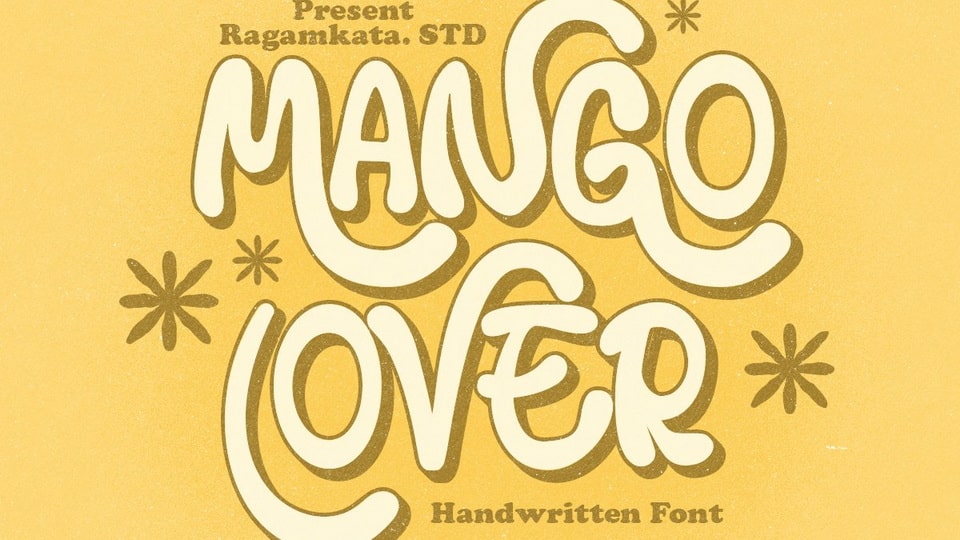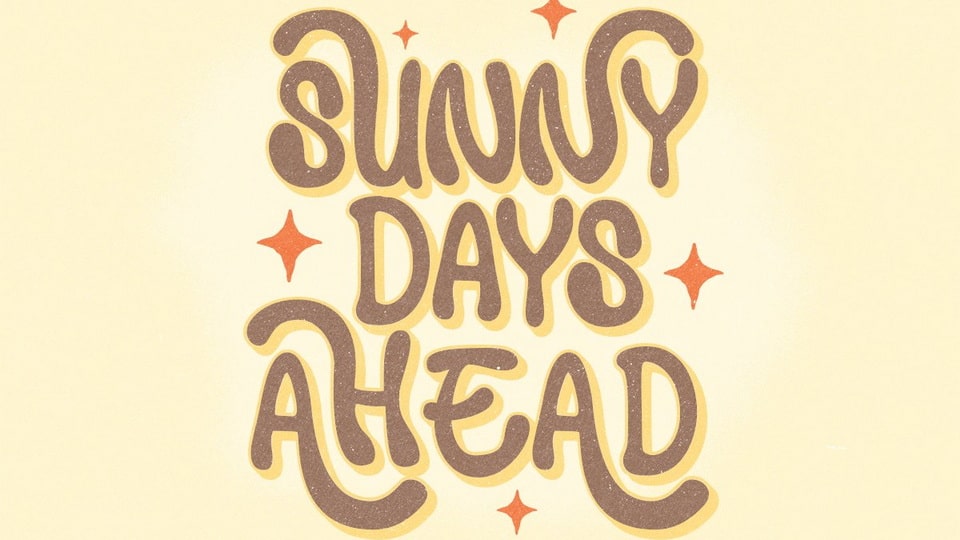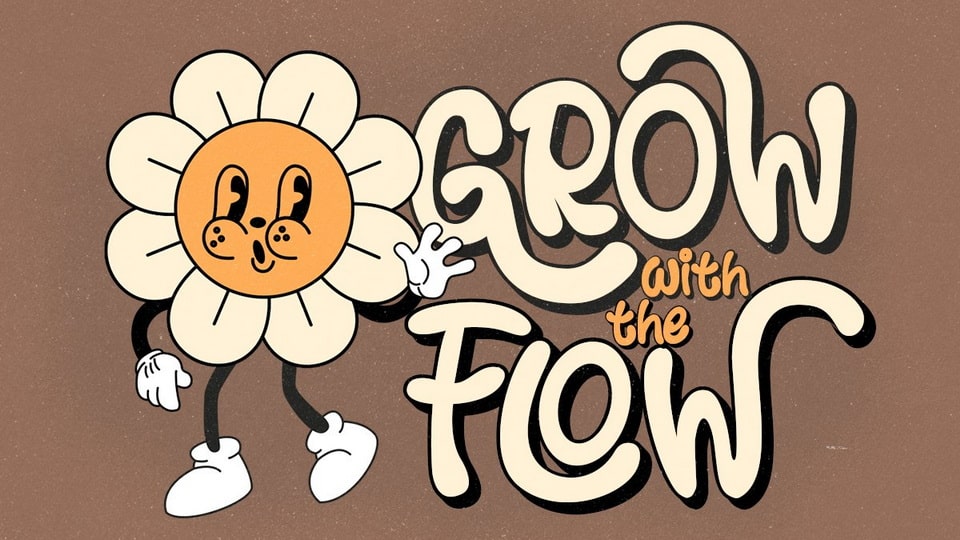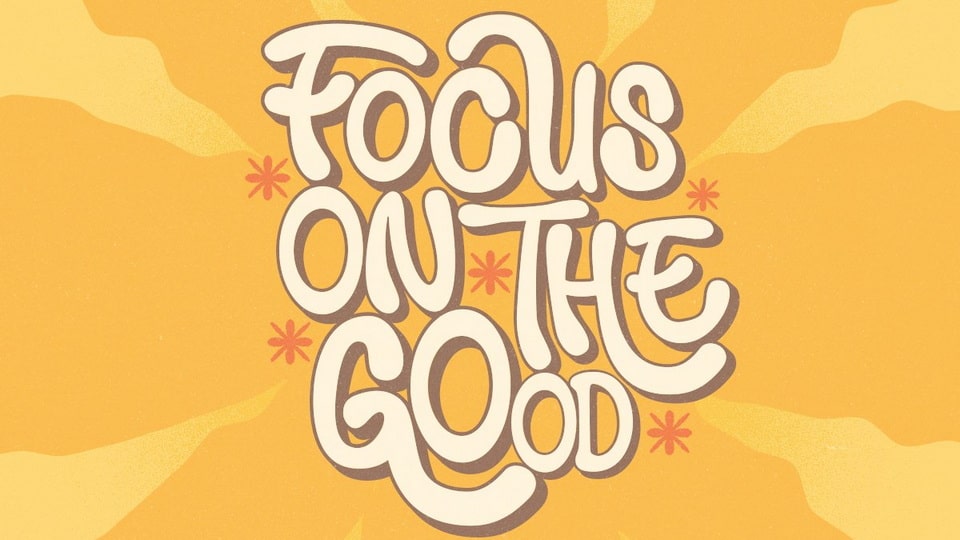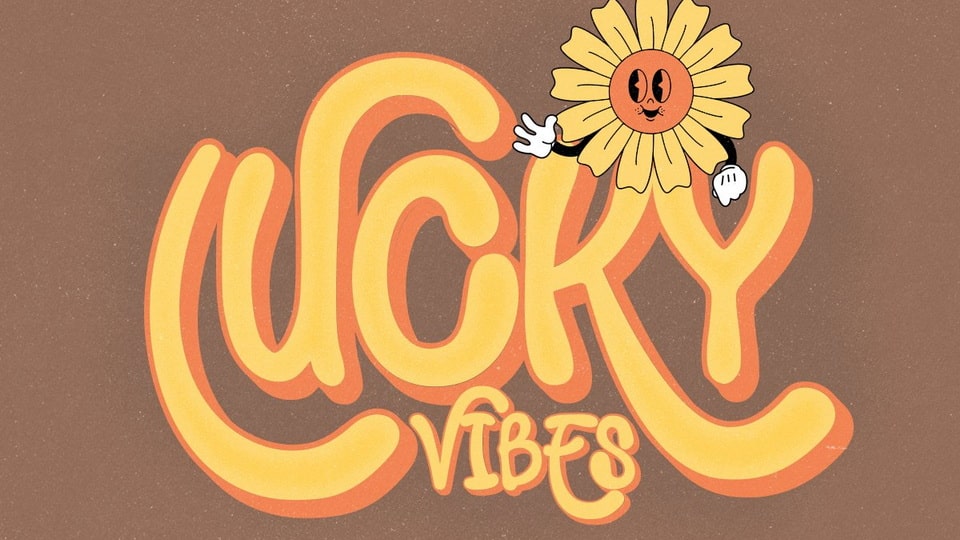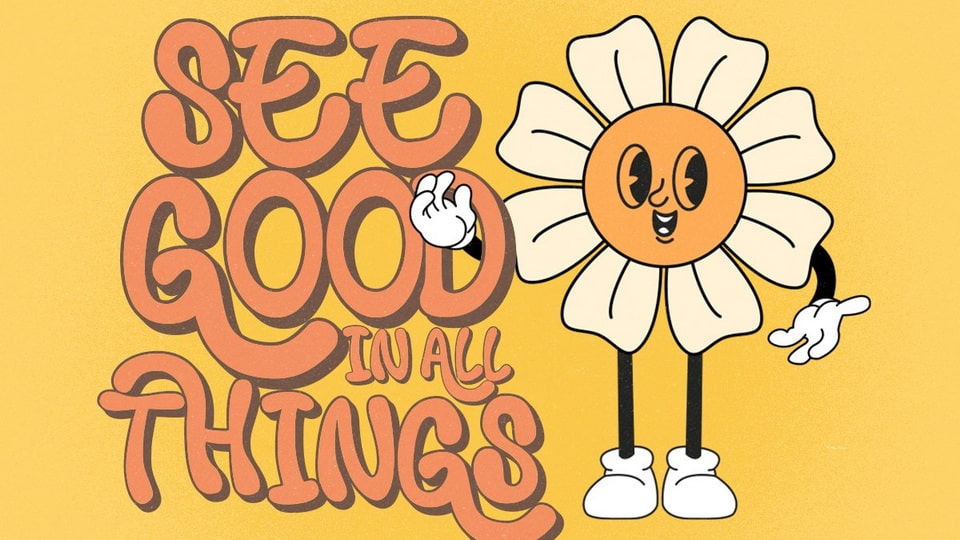
Mango Lover is a whimsical and organically handwritten sans serif font that dances with a playful charm. But that’s not all; Mango Lover comes with its own Shadow version to add depth and character to your text.
With a delightful array of ligatures and alternate characters, this font becomes a creative playground for your projects.